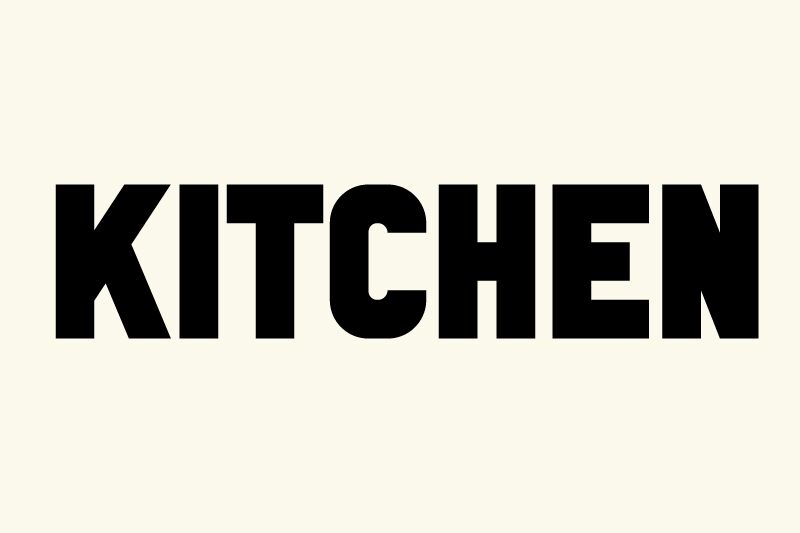
Kitchen Bold
Kitchen Bold is a dynamic and eye-catching sans serif font from the renowned Kitchen font family. Created by Design Vector10, this bold and condensed typeface exudes confidence and modernity. Its sleek lines make it perfect for branding projects that aim to convey a sense of professionalism and sophistication.
Whether it's for a trendy restaurant logo, an innovative tech startup, or even a fitness brand, Kitchen Bold is sure to make a lasting impression. Its versatility allows it to adapt effortlessly to various design projects, adding a touch of elegance and flair.